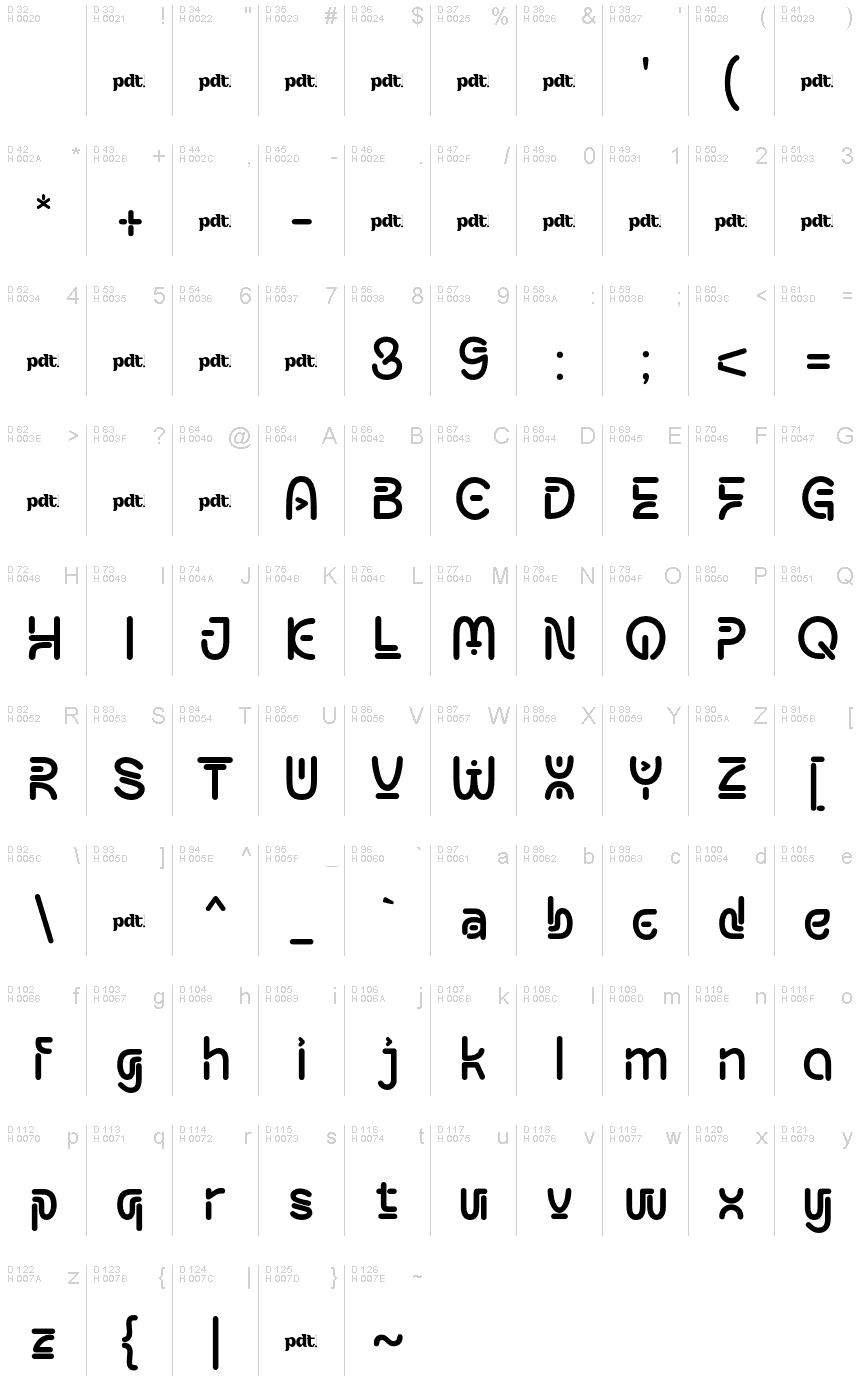
MEXURYTRIAL-Regular
Mexury, the brainchild of font designer Rozi from Twinletter, is a captivating display font that exudes a futuristic and sci-fi vibe. With its semi-light weight, Mexury strikes the perfect balance between elegance and readability. This versatile font is an excellent choice for a multitude of projects such as tech websites, video game titles, movie posters, and futuristic logos. Its unique style will transport your audience to an immersive world of sleek designs and cutting-edge aesthetics. Elevate your visuals with Mexury's seamless blend of innovation and sophistication.